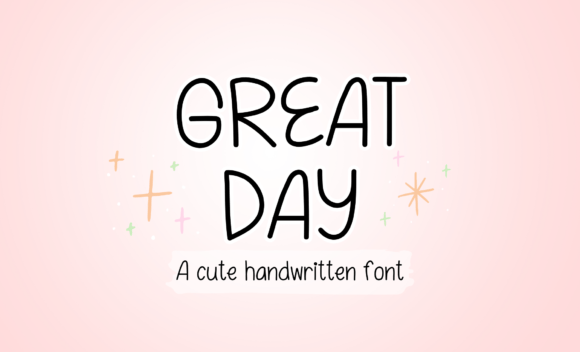
Journey into the realm of exquisite calligraphy with the Great Day Font, a treasure trove of delightful handwritten strokes that will ignite your creativity and transform your digital expressions. This charming script font family, meticulously crafted by the talented LalavaStudio, embodies the essence of playfulness, neatness, and cleanliness, making it an ideal choice for a multitude of digital projects.
Immerse yourself in the boundless possibilities of the Great Day Font, a versatile creation that effortlessly adds a touch of whimsy and elegance to your digital prints, quotes shared on social media platforms like Facebook and Instagram, meticulously planned journals and planners, and presentations for any occasion, whether it's the warmth of Thanksgiving or the joyous spirit of Christmas.
Unleash your inner artist and let the Great Day Font guide you as you create visually captivating designs that resonate with your audience. Embrace the charm of its playful strokes and the precision of its clean lines to craft digital prints that exude a sense of joy and lightheartedness. Share your heartfelt words and quotes on social media, adorned with the distinctive flair of the Great Day Font, and watch as they capture the attention of your followers.
Personalize your digital journals and planners with the Great Day Font, transforming them into cherished companions that reflect your unique personality and style. Let its neat and clean strokes dance across the pages, guiding your thoughts and aspirations with a touch of elegance. Embrace the magic of the Great Day Font and witness how it effortlessly elevates your digital presentations, adding a layer of sophistication and charm that captivates your audience.